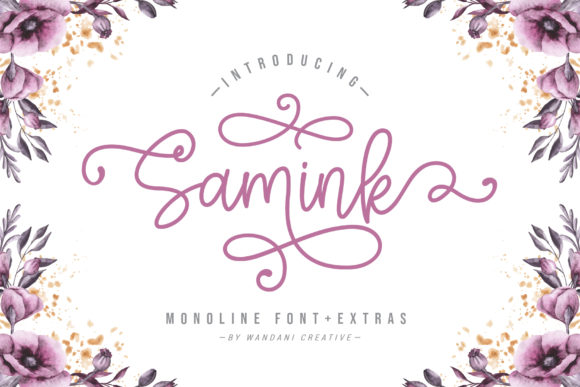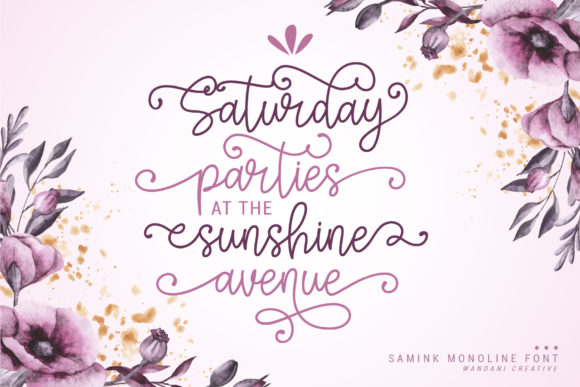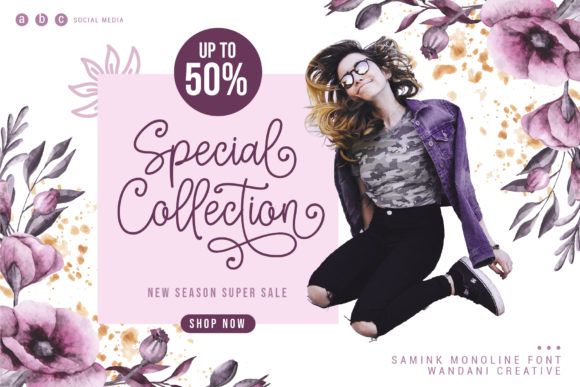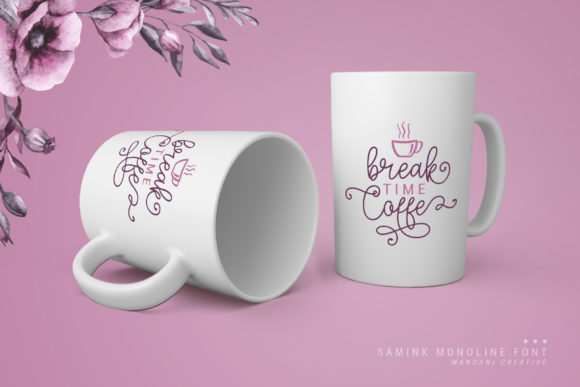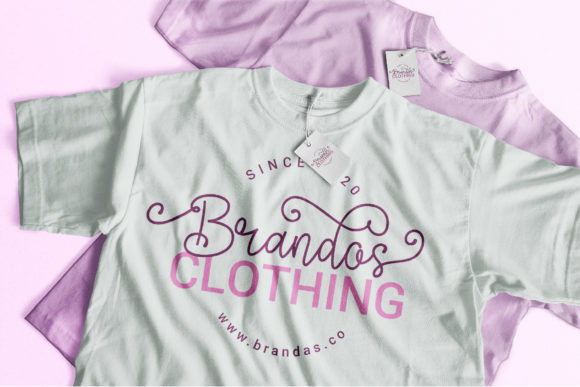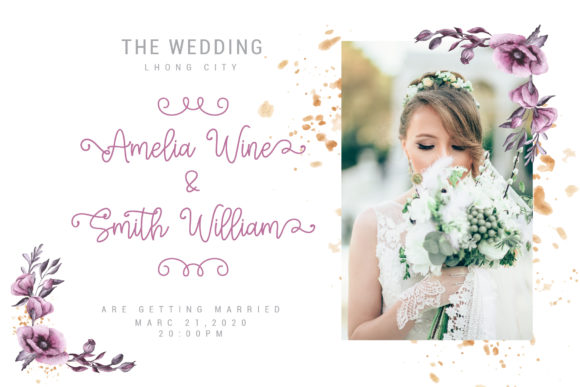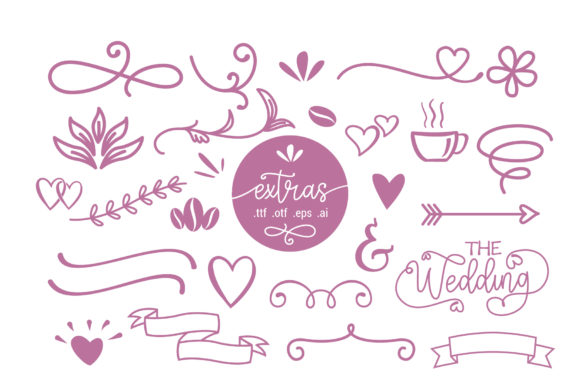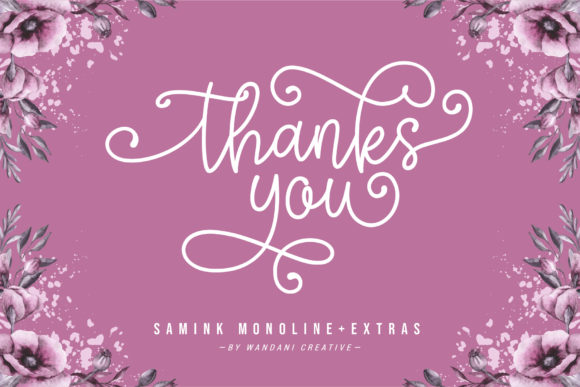
Samink Font
About Samink Font
Fall in love with Samink. This luxurious and playful script is the ideal font for adding a fancy playfulness to your next design idea.